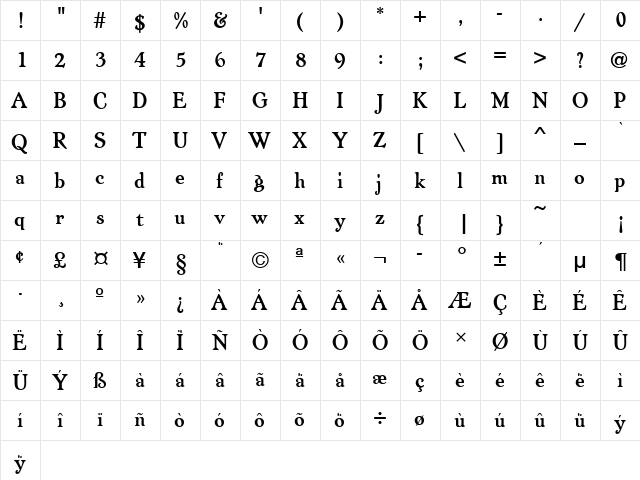
ArtcraftURWTBol Regular Font Preview
ArtcraftURWTBol Regular
Design Context for ArtcraftURWTBol Typeface
ArtcraftURWTBol offers clean, dependable letterforms without strong stylistic allegiance, making it a practical choice for designers who need flexibility.